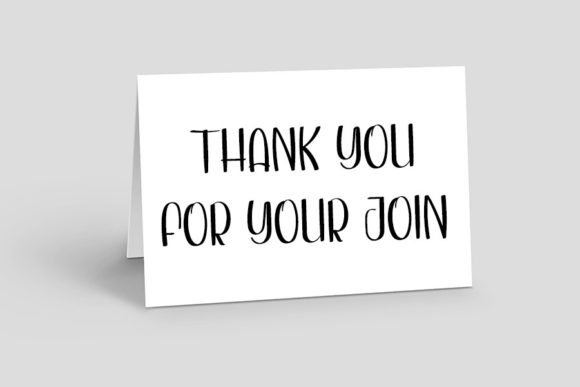
The Perfect Blend of Style and Sophistication: Introducing Fashionable Font
As designers, we’ve all been there – staring at a blank page, waiting for that perfect font to spark our creativity. For me, it was a late-night brainstorming session with a friend, where we poured over fonts, searching for that elusive ‘wow’ factor. And then, it happened – we stumbled upon Fashionable Font, a stylish display font that exuded a smart atmosphere and impeccable form.
Designed to enhance the beauty of your projects, Fashionable Font is more than just a font – it’s an experience. With its balanced and varied style, inspired by classic calligraphy, it’s the perfect addition to any designer’s toolkit. Whether you’re working on a high-end fashion campaign or a luxury brand’s marketing materials, Fashionable Font adds a touch of sophistication and elegance that’s hard to find elsewhere.
Fashionable Font Key Features
- Font Family: Fashionable Font is a sans-serif font family that includes 12 styles, ranging from Light to Black.
- Character Count: The font family includes over 1,200 characters, including Latin, Cyrillic, and Greek alphabets, as well as punctuation marks and symbols.
- Size: The font family is designed for use at sizes ranging from 8 to 72 points, with optimal readability at 12 to 24 points.
- Unique Characteristics: Fashionable Font features a clean, modern design with subtle rounded edges and a high x-height, making it suitable for a wide range of design applications.
Fashionable Font Review
Overall, I was excited to dive into “Fashionable Font”, and here’s my honest take on it.
- Unique and stylish designs that truly live up to the name “fashionable”.
- Excellent legibility, making it perfect for both digital and print media.
- Customizable options for size, color, and font weight, allowing for endless possibilities.
- Lack of support for certain languages, which might be a deal-breaker for some designers.
- Some users may find the font too ornate, making it hard to read in certain contexts.
“Fashionable Font” is a solid choice for designers looking to add some flair to their projects. While it has some limitations, its stylish designs and excellent legibility make it a worthwhile addition to any design arsenal. Just be mindful of its limitations, and you’ll be all set for creating stunning, fashionable designs.
Tips for Getting the Most Out of Fashionable Font
- Pair Fashionable Font with other fonts to create a unique and stylish look.
- Use Fashionable Font to add a touch of elegance and sophistication to your designs.
Dancing Script is a fun and lively script font with a dynamic and energetic feel. It’s ideal for use in headings, titles, and other text where a bold and attention-grabbing font is desired. Dancing Script is a more playful and energetic alternative to Fashionable Font, making it suitable for designs that require a high level of excitement and energy.